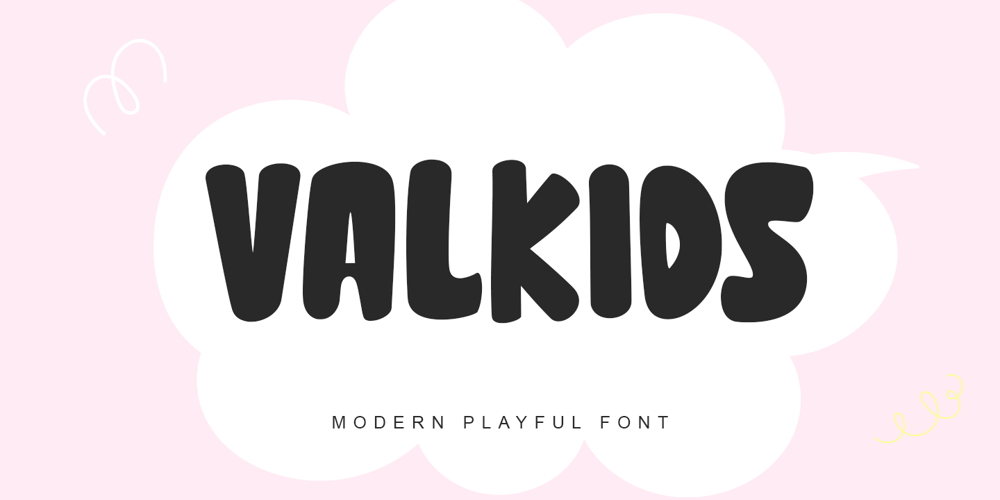
Valkids Font Family was designed by Thomas Aradea and published by Letterara. Valkids contains 2 styles and family package options. Valkids is a cute and sweet handwritten font with an incredibly friendly feel. This font will turn any creative idea into a true piece of art! This font is PUA encoded which means you can access all of the cute glyphs with ease!